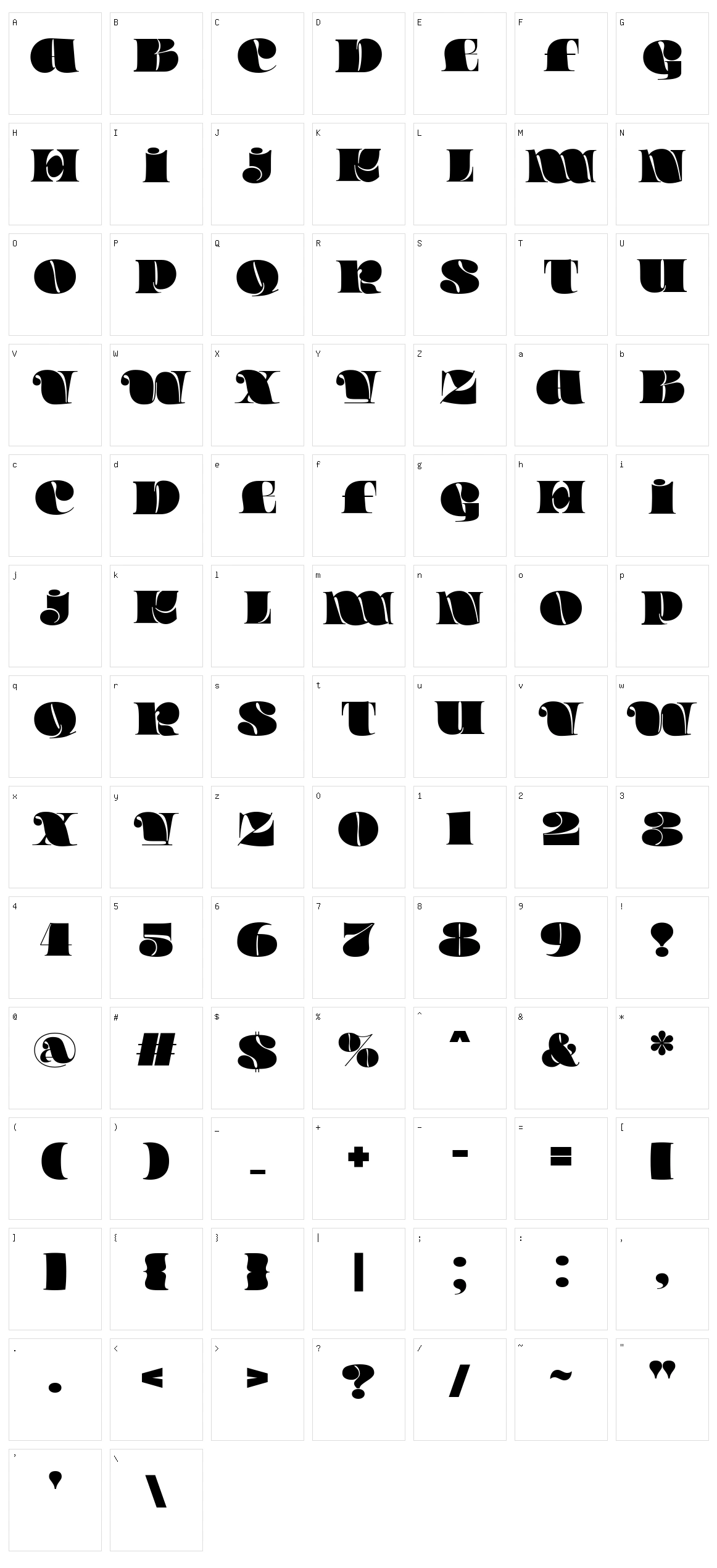
The free font Quarantype Chillout is carefully designed by Zetafonts, showcasing a thoughtful balance of creativity and usability and falls under the Groovy font style. When you download the ZIP file, it contains only 6353.25 KB of font files, making it lightweight and quick to download. Please review the license details below to understand permitted usage and distribution rights. If license information is not available, we recommend using this font for personal projects only or contacting the author directly for commercial usage permissions.